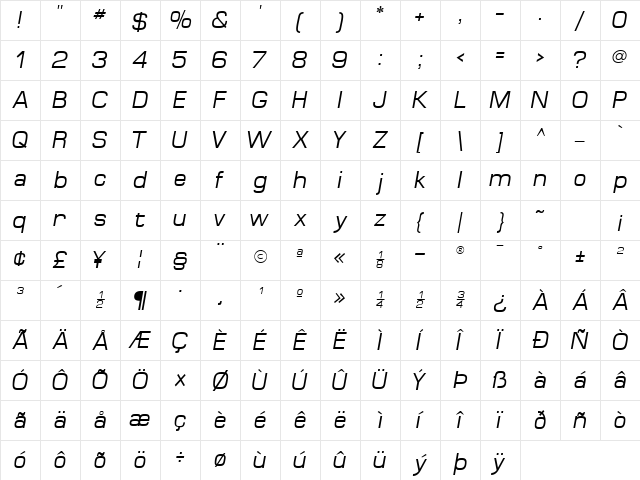
MinimaSSK Italic Free Font
Design Context for MinimaSSK
MinimaSSK is a composed and adaptable typeface that performs quietly and consistently across a wide range of design contexts. The slanted form adds forward momentum and visual energy.
Pro Tip: Use MinimaSSK for emphasis, pull quotes, and subheadings where its slanted energy can add rhythm to the layout.